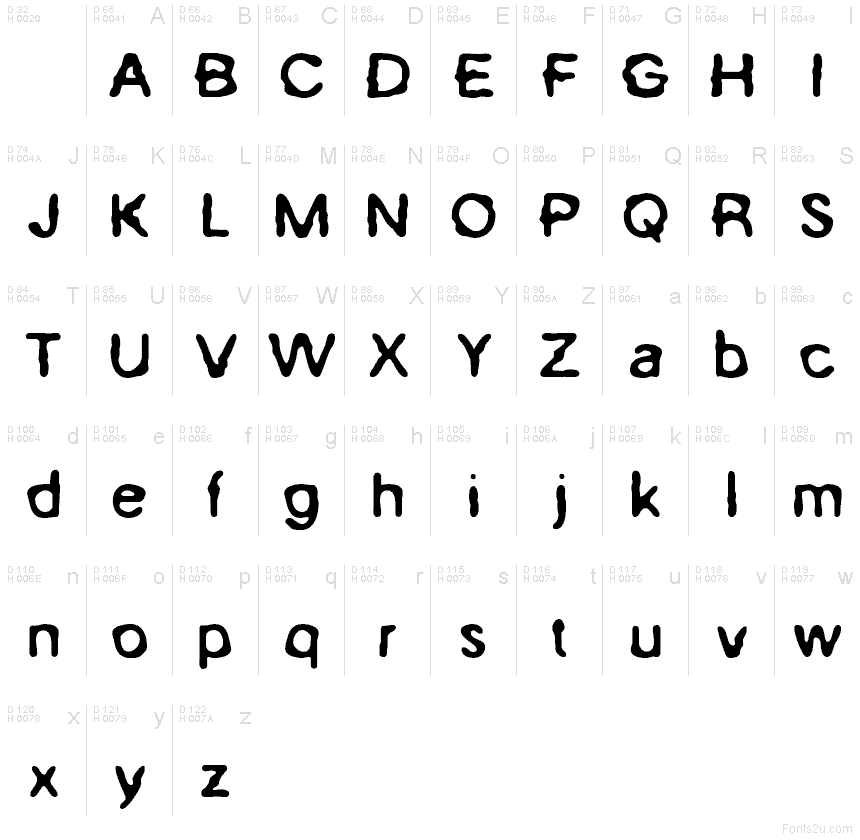
CSRiverDrawn-Regular Demo
CS River Drawn font by Craft Supply Co. is a free bold brush font that flows with inky, river-like strokes and soft, rounded edges. Built within the CS River family, its defining trait is the organic wobble—thick pools taper to narrow channels—creating a lively, hand-painted rhythm that reads boldly without feeling heavy. The texture feels wet and tactile, giving headlines a human pulse rather than a polished sheen.
Using CS River Drawn, you get standout impact for beverage labels, surf or skate posters, farmers market signage, kids’ book covers, festival merch, and punchy YouTube thumbnails. The generous counters and chunky silhouettes hold up at large sizes and still charm in short subheads. Pair this free font with a clean, light grotesk or geometric sans to let its brushy character take center stage.